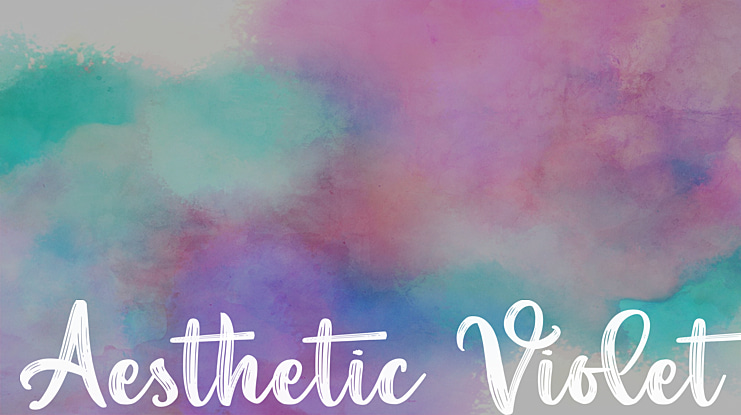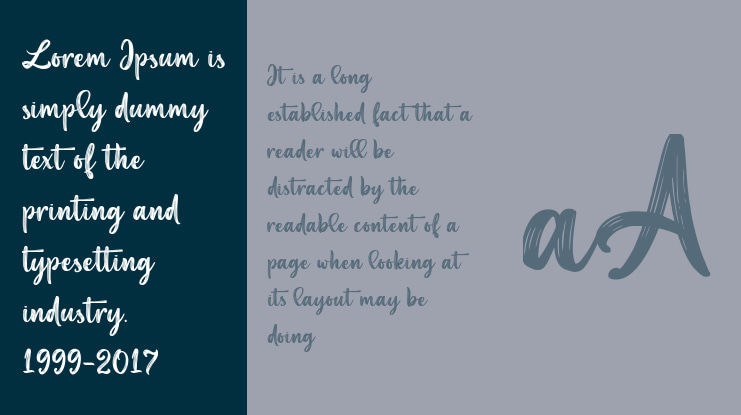
Aesthetic Violet Font
AESTHETIC VIOLET - a beauty handbrush font -
AESTHETIC VIOLET is natural handbrush font with ending swash. It is great for quotes, card, banner, book, cutting, silhouette, social media content and anything of your project. The ending swash make this font look so natural. Very easy to access it. You only need to add underscore twice after the lowercase. This product has 2 types, regular and slant.